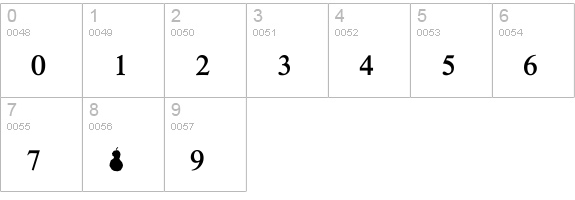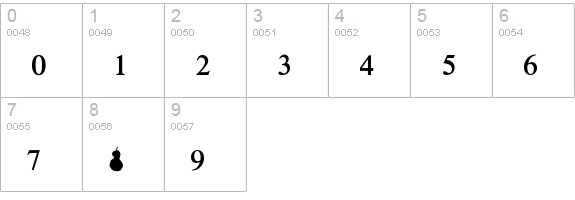
Amnon-Fruit Font Details
Amnon-Fruit font is a delightful and whimsical typeface that exudes a playful charm perfect for a variety of design projects. With its rounded edges and unique letter shapes, this font is sure to add a touch of fun and creativity to any design. Whether you're working on a children's book, greeting cards, or branding materials, Amnon-Fruit font will bring a fresh and vibrant look to your creations. The best part? Amnon-Fruit font is available for free download at FontsMarket.com. Simply visit the website to get your hands on this fantastic font and start incorporating its cheerful style into your projects today. Whether you're a seasoned designer or just starting out, Amnon-Fruit font is a versatile and eye-catching choice that is sure to make your designs stand out.